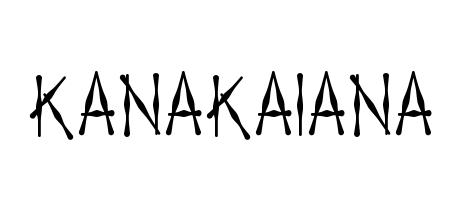
KanaKaiana
By William Jeovah de Medeiros
KanaKaiana: A font forged in fire, each letter a jagged shard of obsidian. Its raw, primal energy evokes ancient scripts and forgotten languages, whispering tales of strength and resilience. Bold yet subtly elegant, KanaKaiana is a testament to untamed beauty. Perfect for titles, logos, and designs demanding a fierce presence.